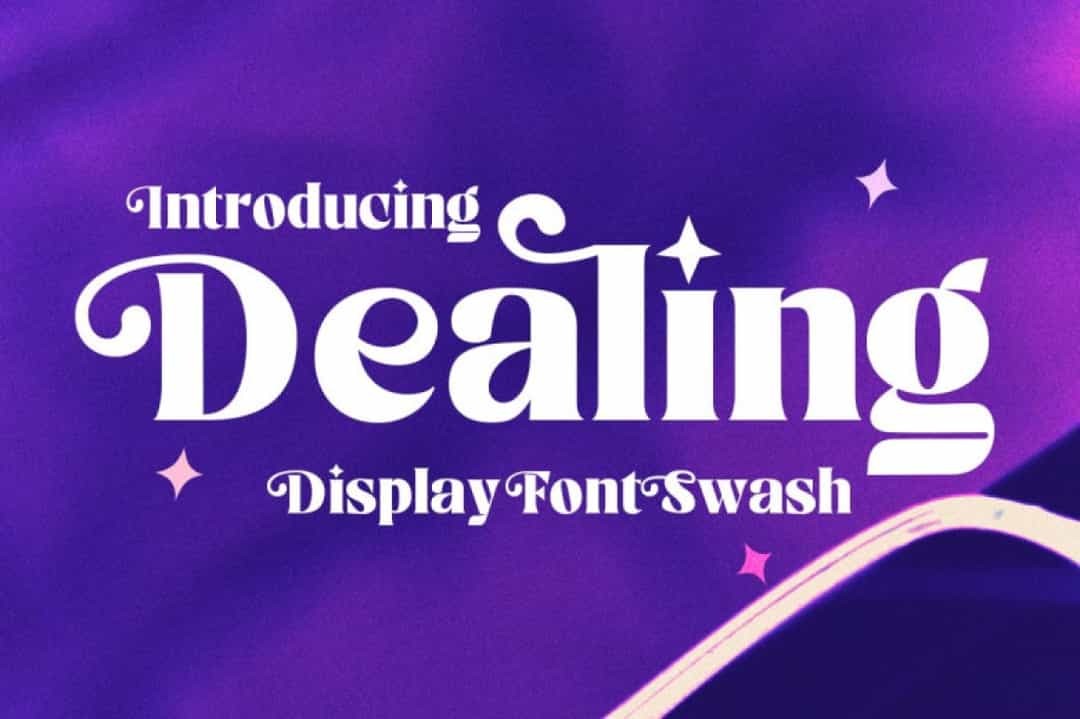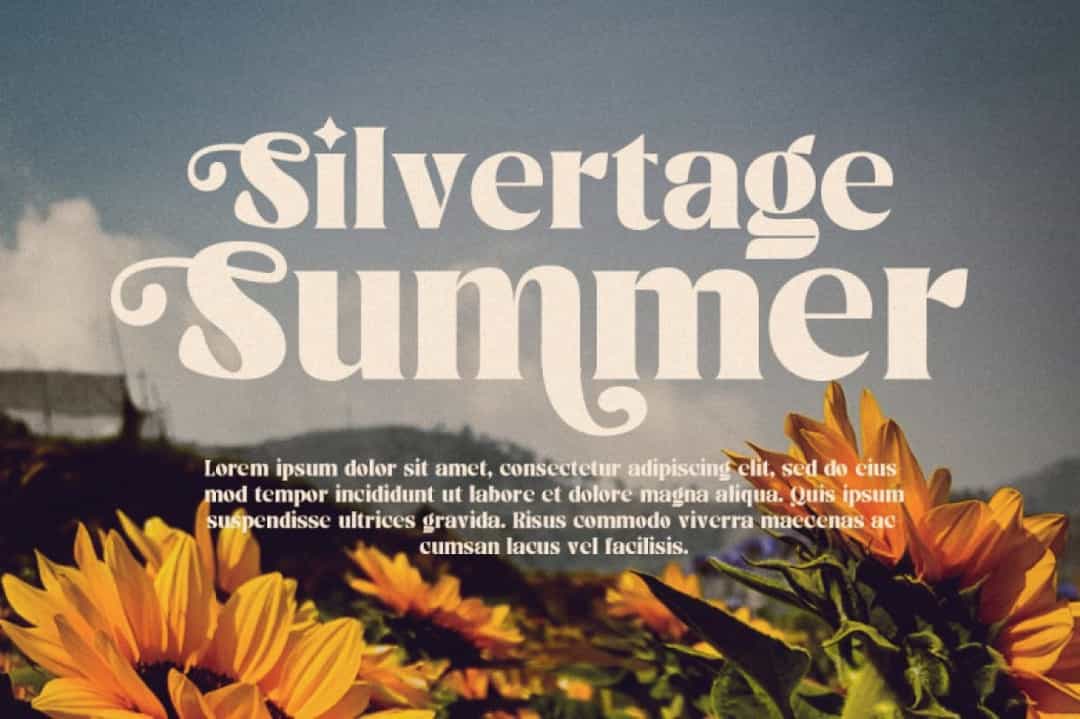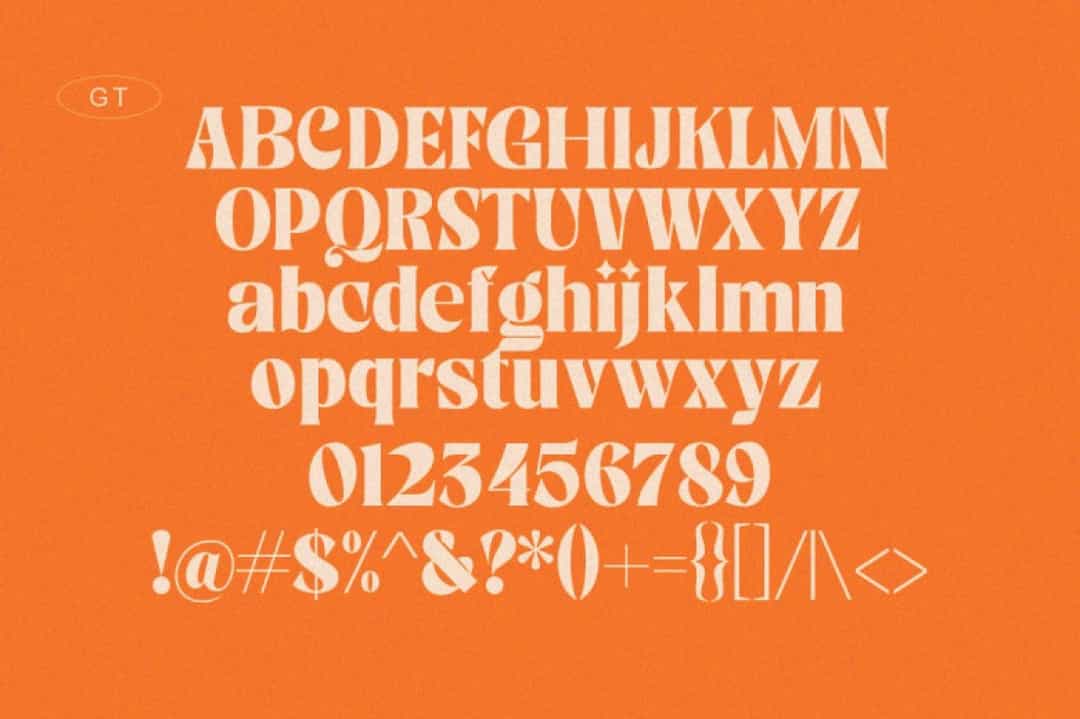
Dealing is a sophisticated modern show serif font designed specifically for displays. Inspired by both contemporary fashion and classic fonts, the font features hundreds of alternate symbols and characters for enhanced effects.